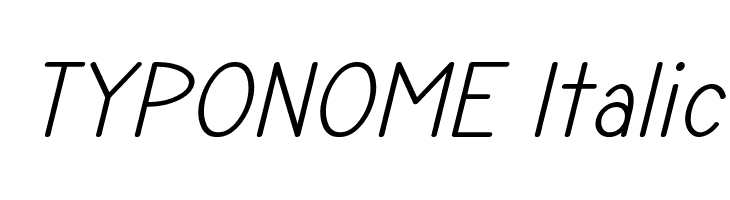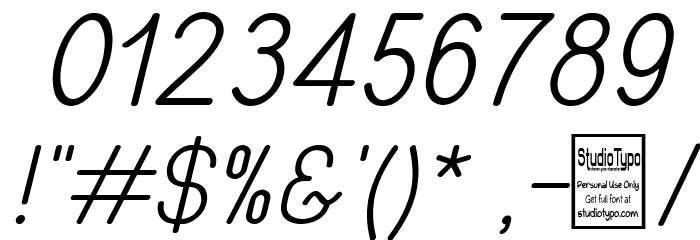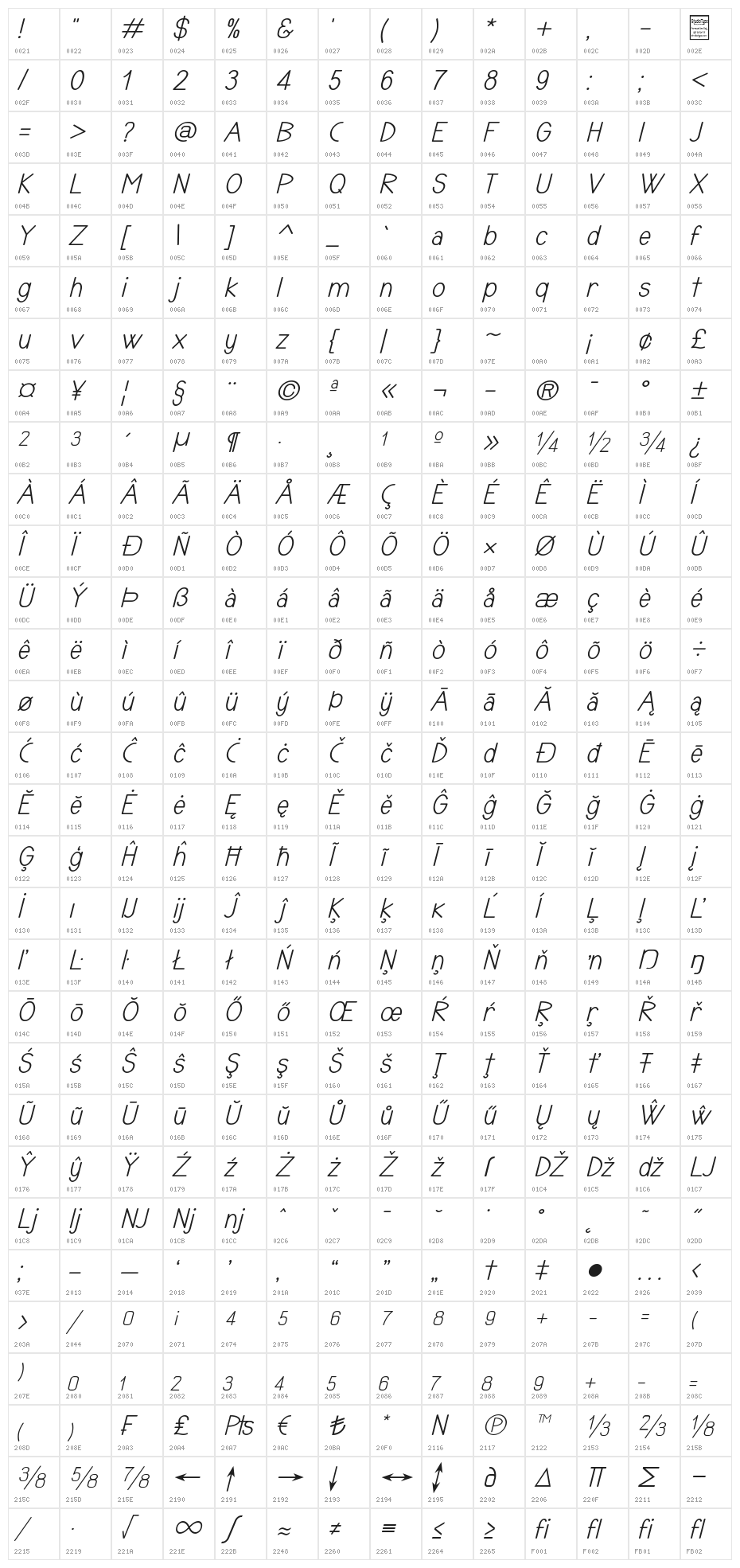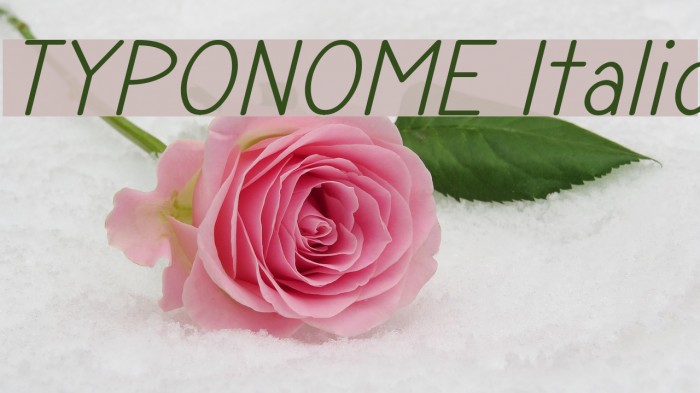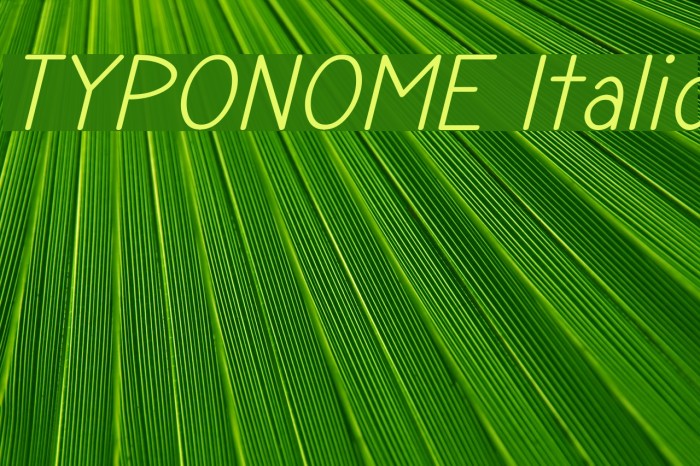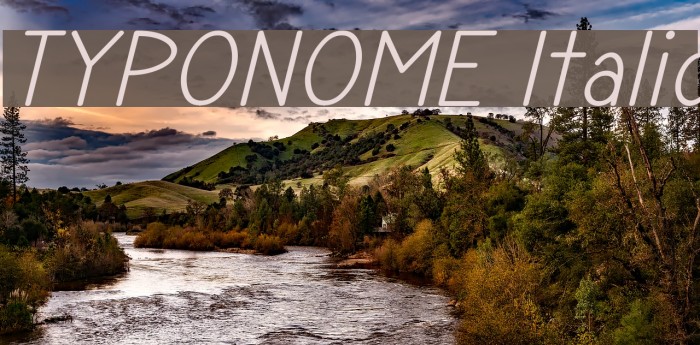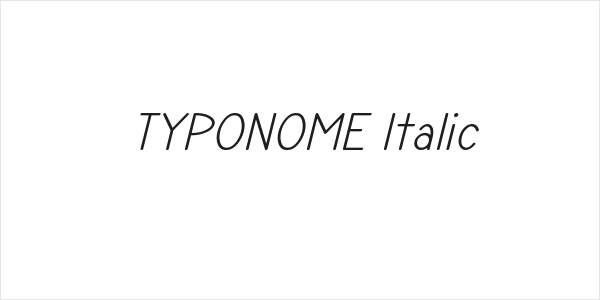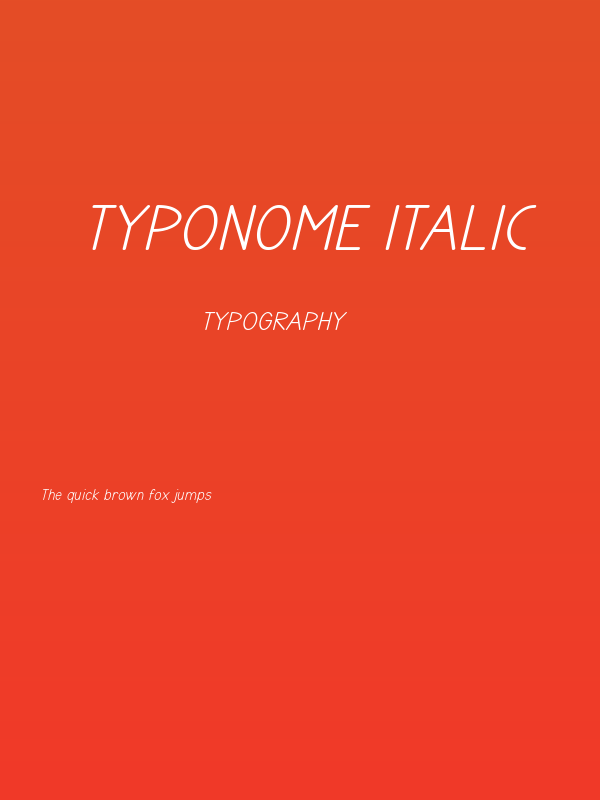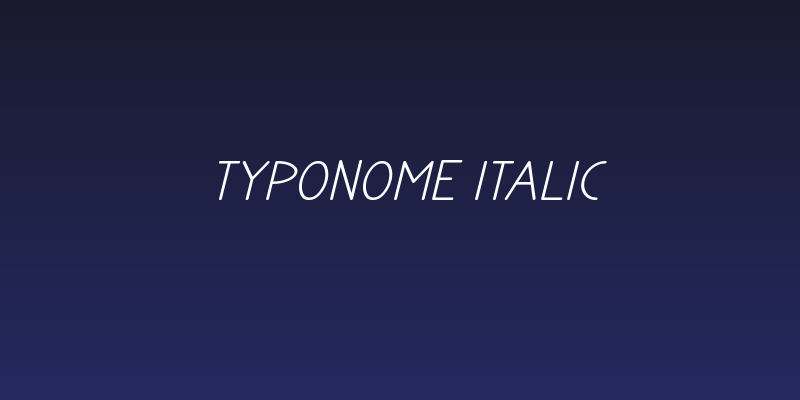
TYPONOME Italic Font
TYPONOME Italic Description
This font features a sleek and modern italic style, characterized by its clean and smooth curves. The letters are slightly slanted, giving a sense of motion and elegance. The uppercase and lowercase letters maintain a consistent style, with a uniform stroke width that provides a harmonious appearance. The numerals are clear and easily readable, complementing the overall design. Special characters are well-integrated, maintaining the font's aesthetic. This font is versatile, suitable for various design needs.